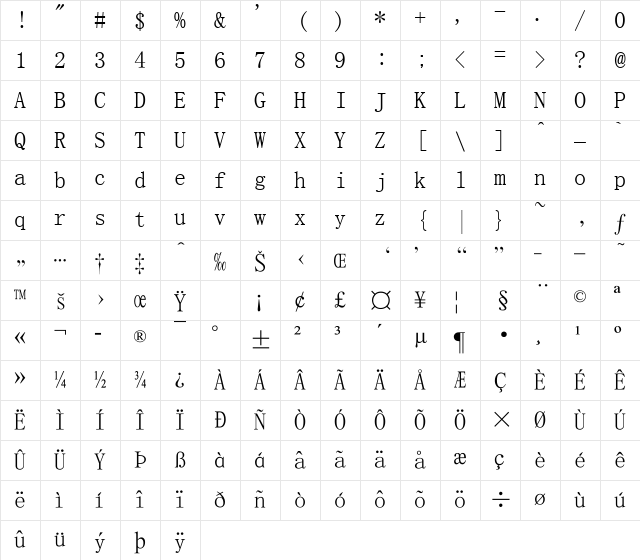
Sun-ExtA Regular Free Font
Sun-ExtA Regular
Foundry: Beijing ZhongYi Electronics Co.
Designer: Beijing ZhongYi Electronics Co.
Design Context for Sun-ExtA
Sun-ExtA is a composed and adaptable typeface that performs quietly and consistently across a wide range of design contexts.
Who designed the Sun-ExtA Regular font?